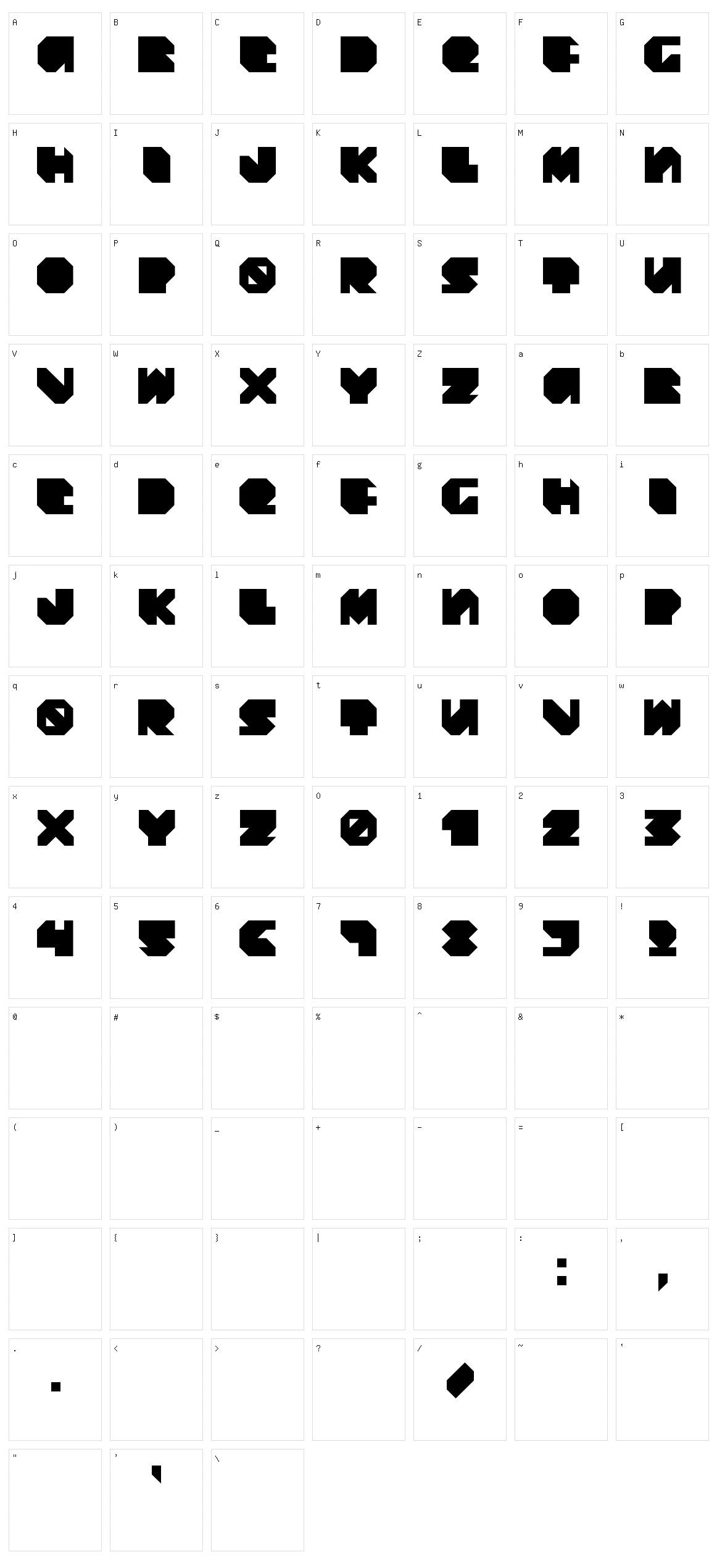
The free font Daydream Daily is carefully designed by Bem Olaguera, showcasing a thoughtful balance of creativity and usability and falls under the Square font style. When you download the ZIP file, it contains only 3.62 KB of font files, making it lightweight and quick to download. Please review the license details below to understand permitted usage and distribution rights. If license information is not available, we recommend using this font for personal projects only or contacting the author directly for commercial usage permissions.